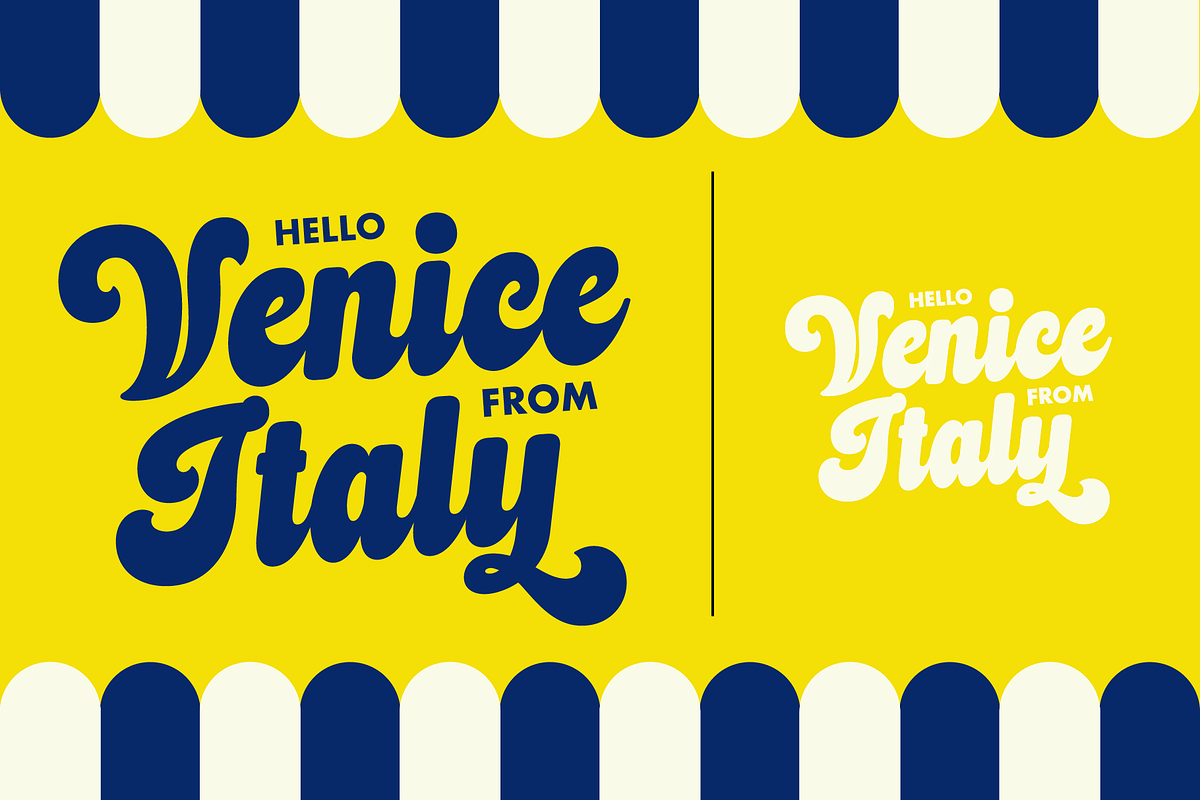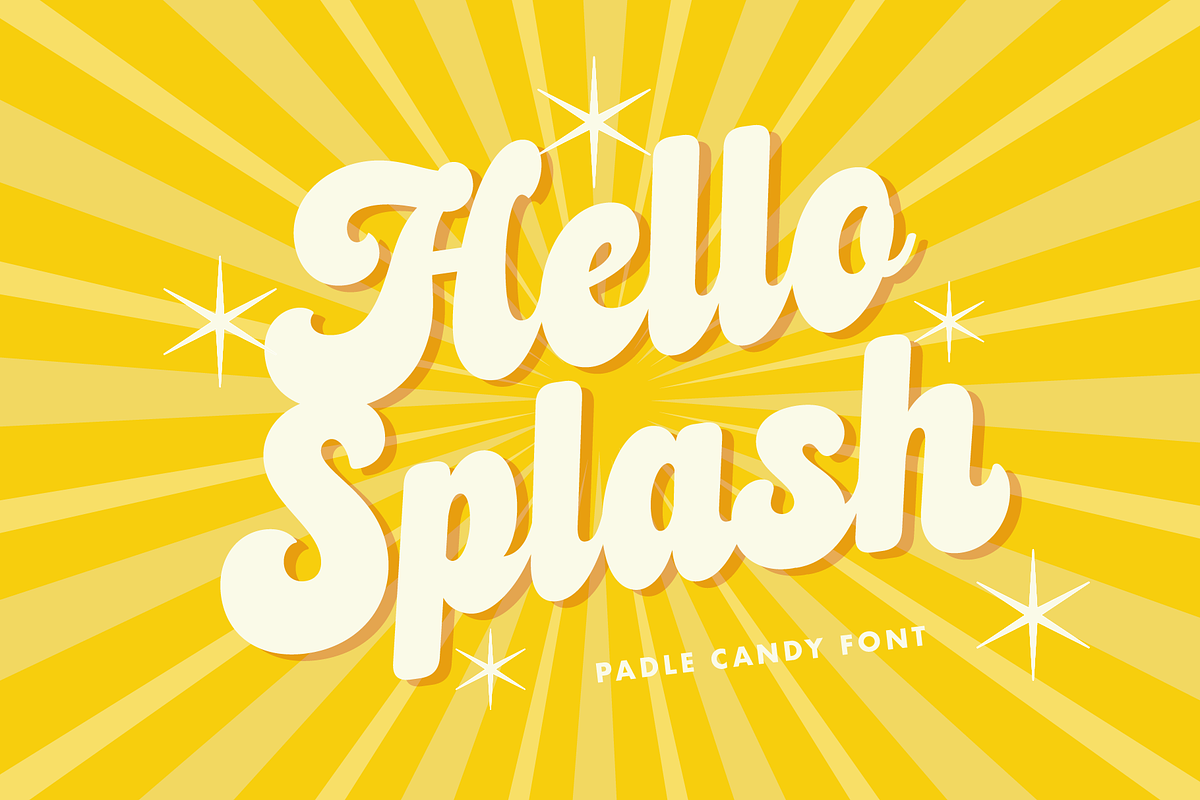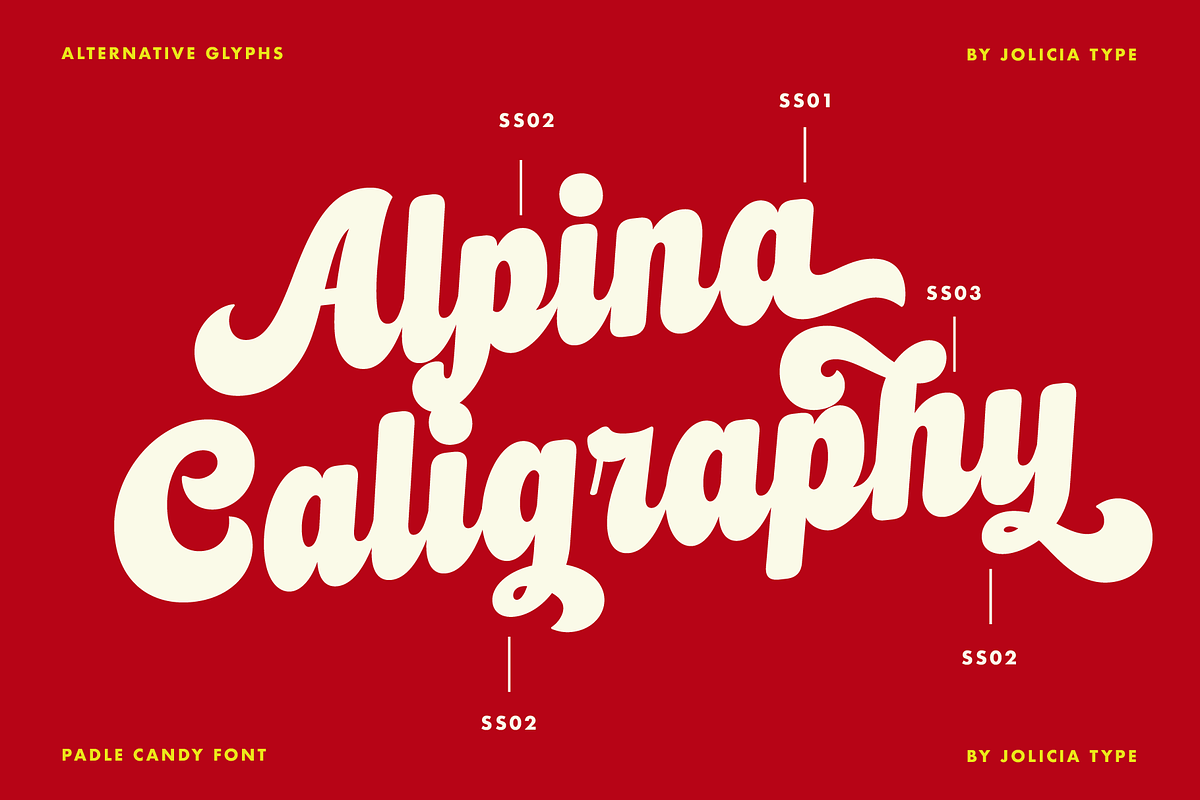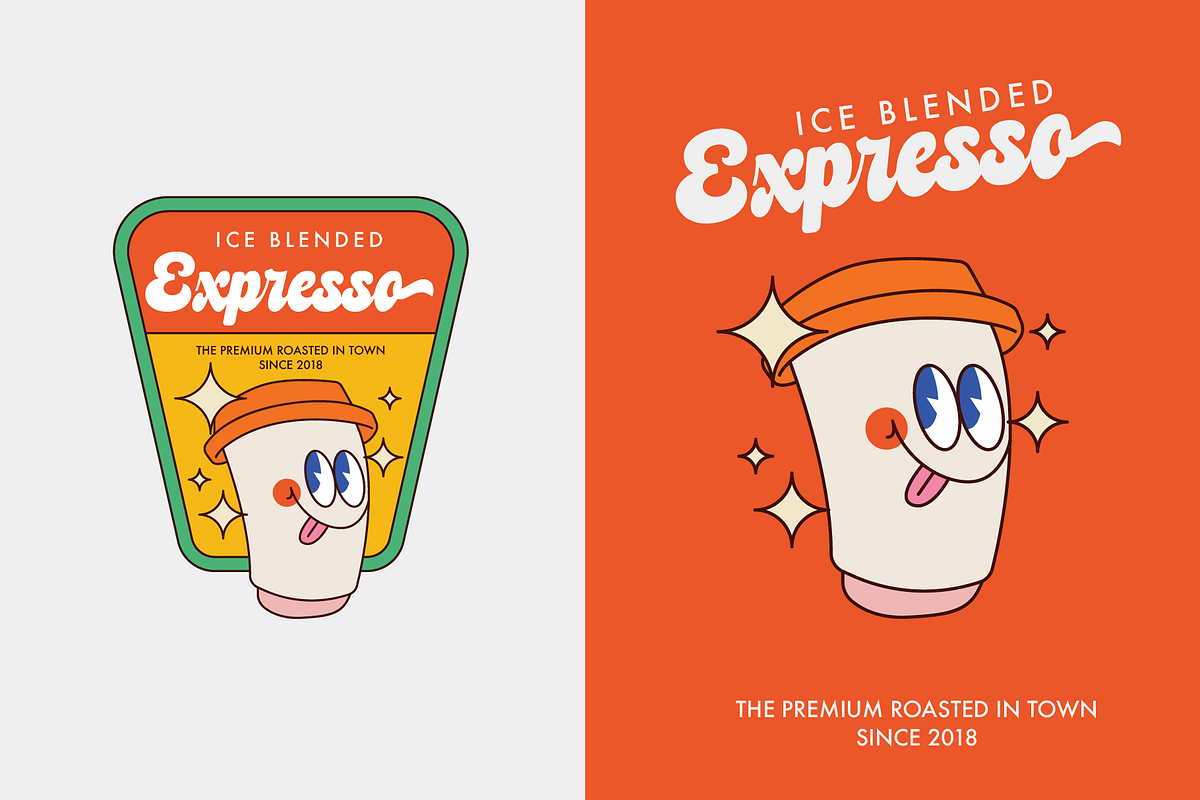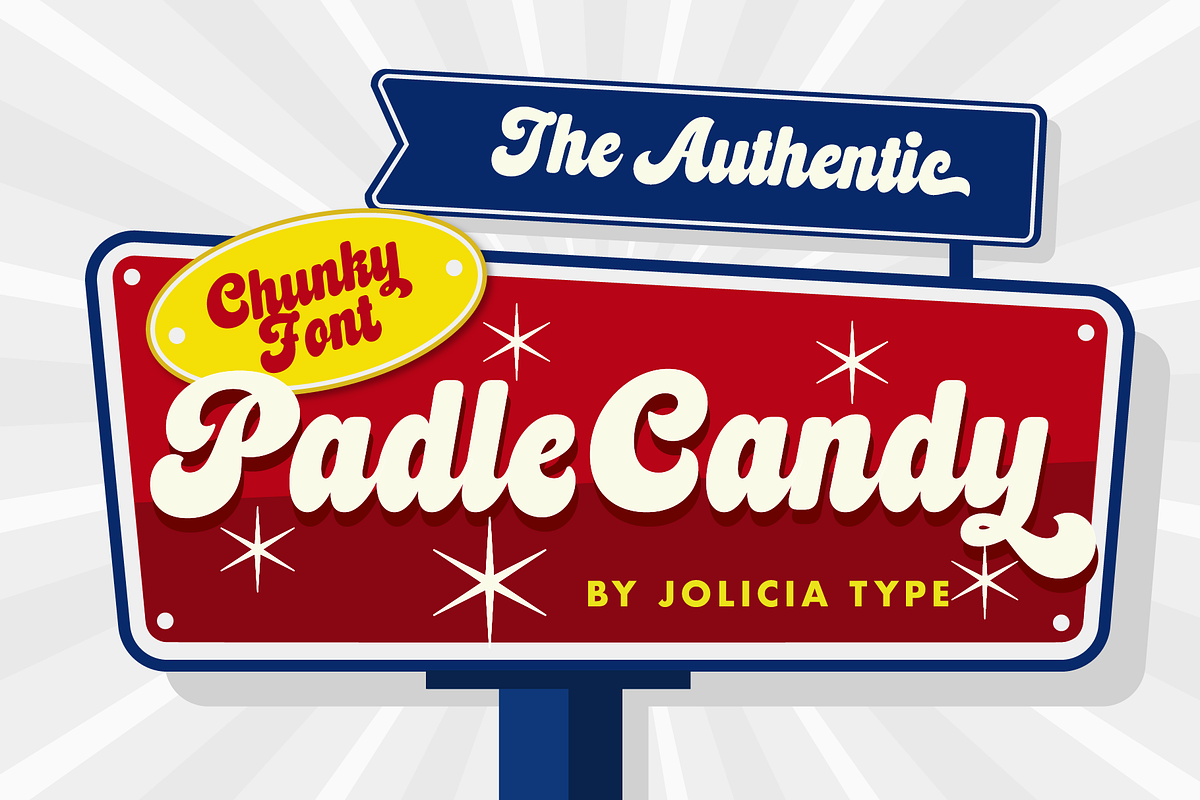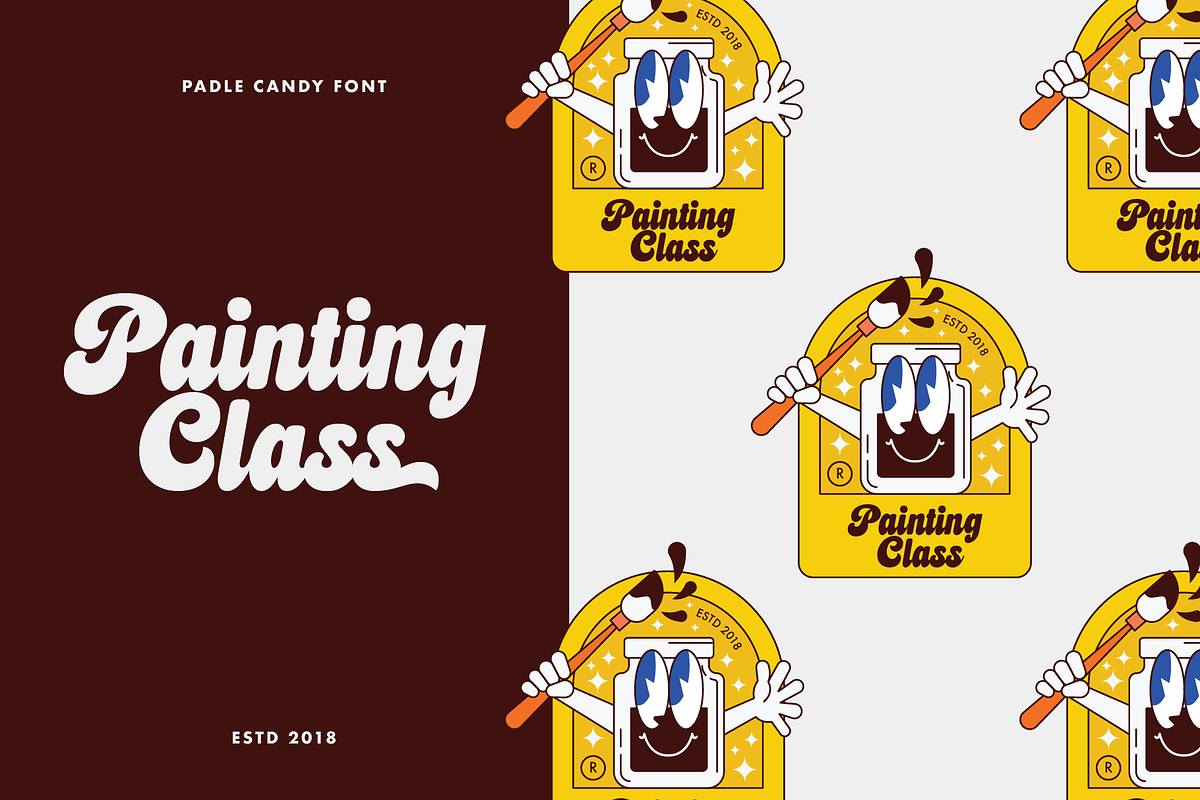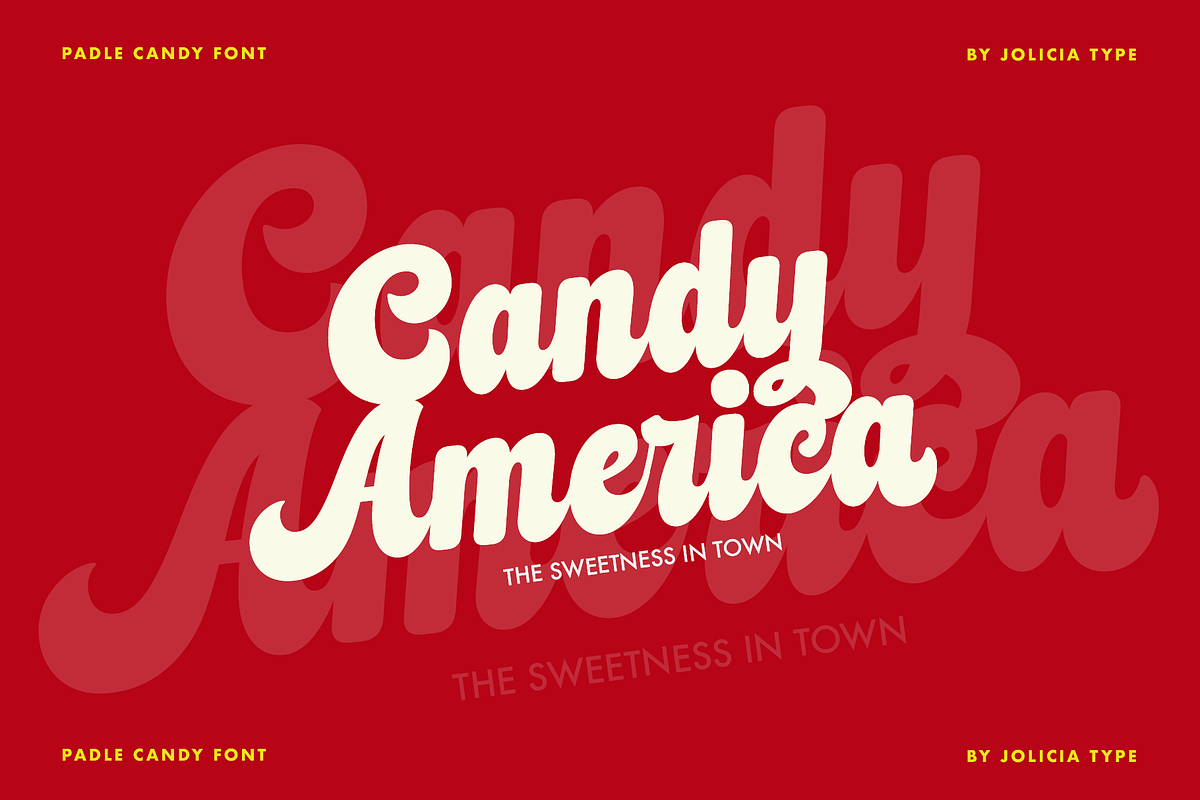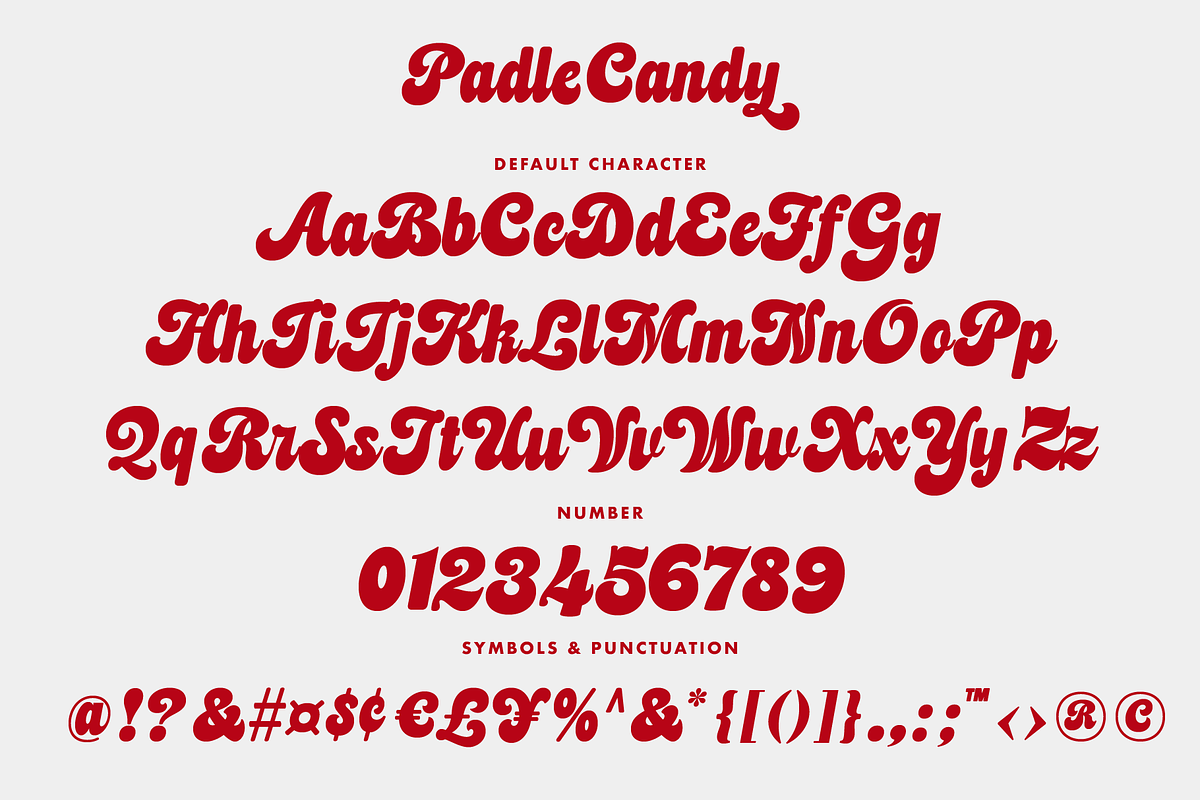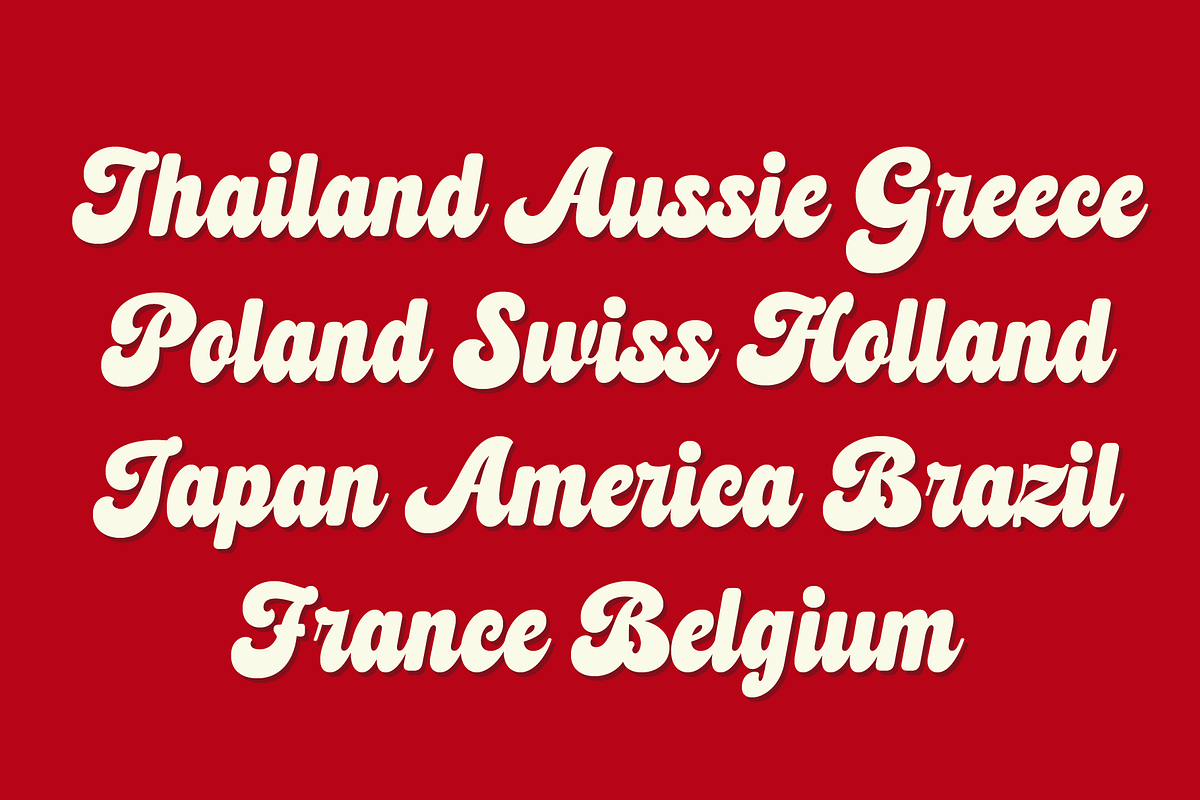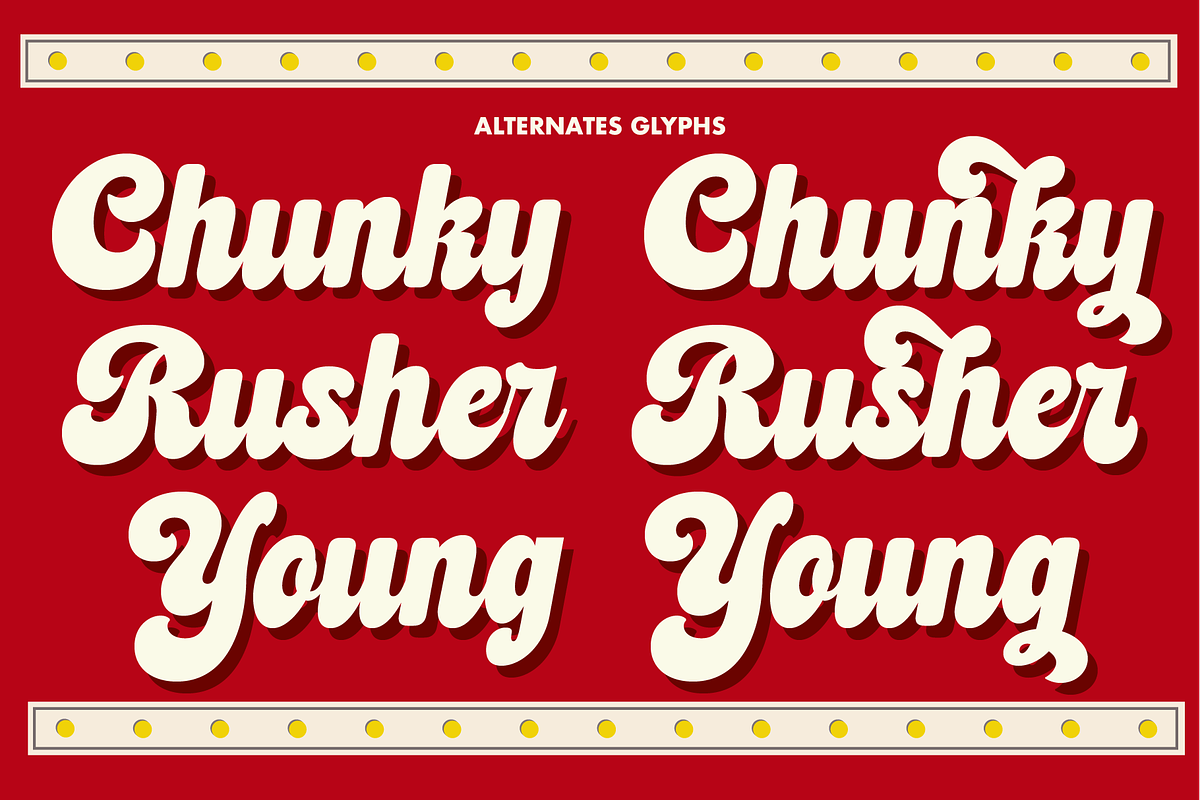
Padle Candy | Chunky Script
Padle Candy is a playful chunky script font bursting with sweet personality and cheerful energy. Designed with bold curves, bouncy letterforms, and a soft handwritten flow, this font brings a fun and friendly vibe to every design. Inspired by candy packaging, retro sweets, and joyful pop aesthetics, Padle Candy delivers a charming look that instantly grabs attention while staying warm and approachable.
Perfect for branding, snack packaging, playful logos, social media graphics, birthday invitations, stickers, posters, apparel, and fun merchandise, this font adds a deliciously happy touch to any creative project. Its chunky strokes and smooth script style create a balance between cute, bold, and highly readable typography.
Whether you're creating colorful branding or eye-catching headlines, Padle Candy is the perfect choice for designs that want to feel energetic, sweet, and full of joy